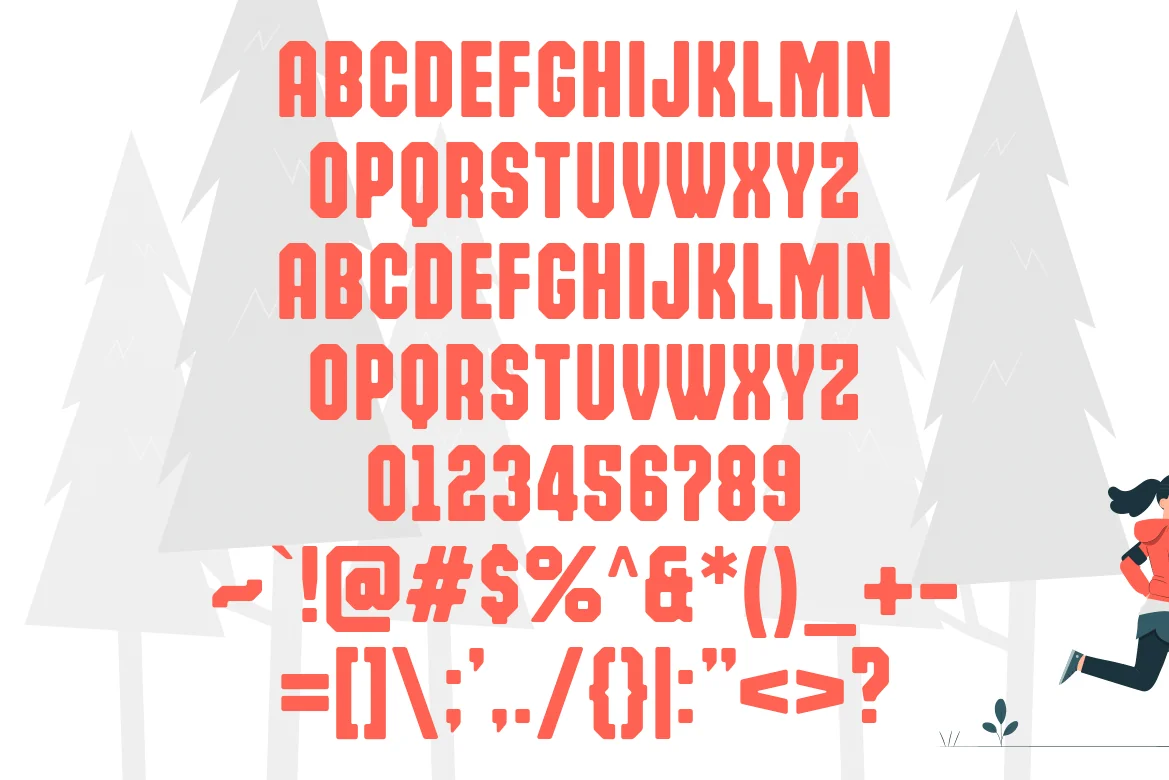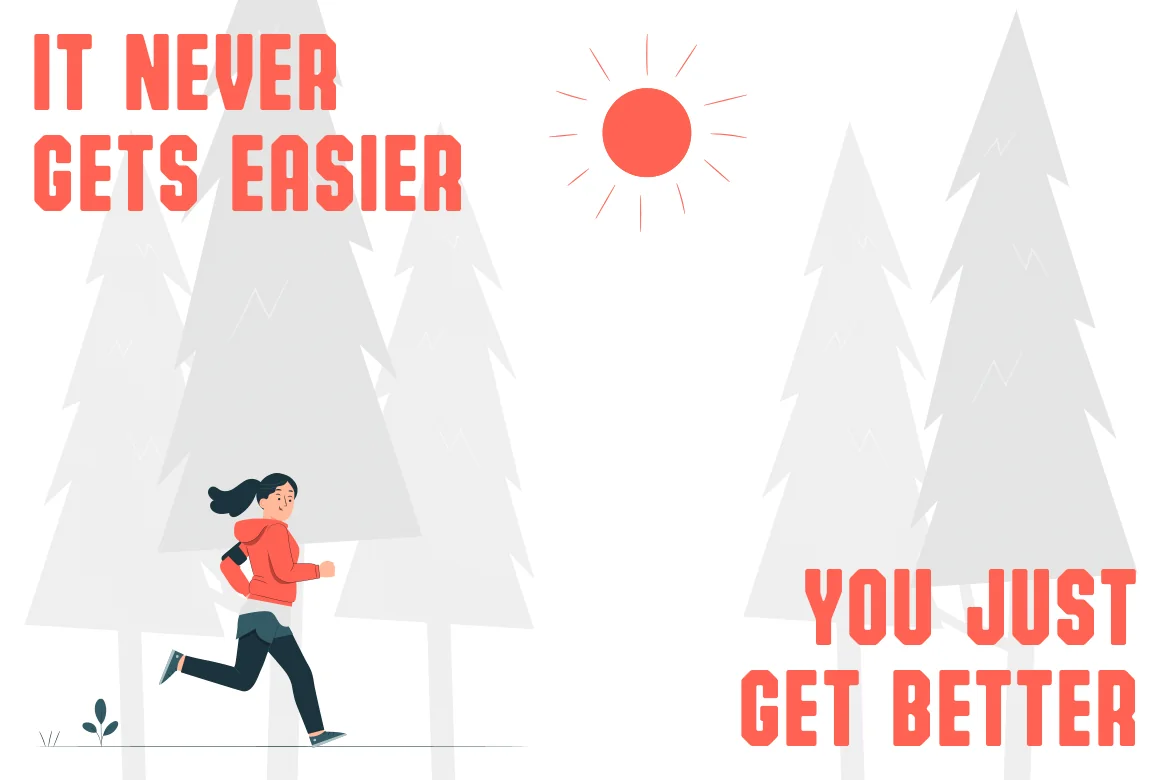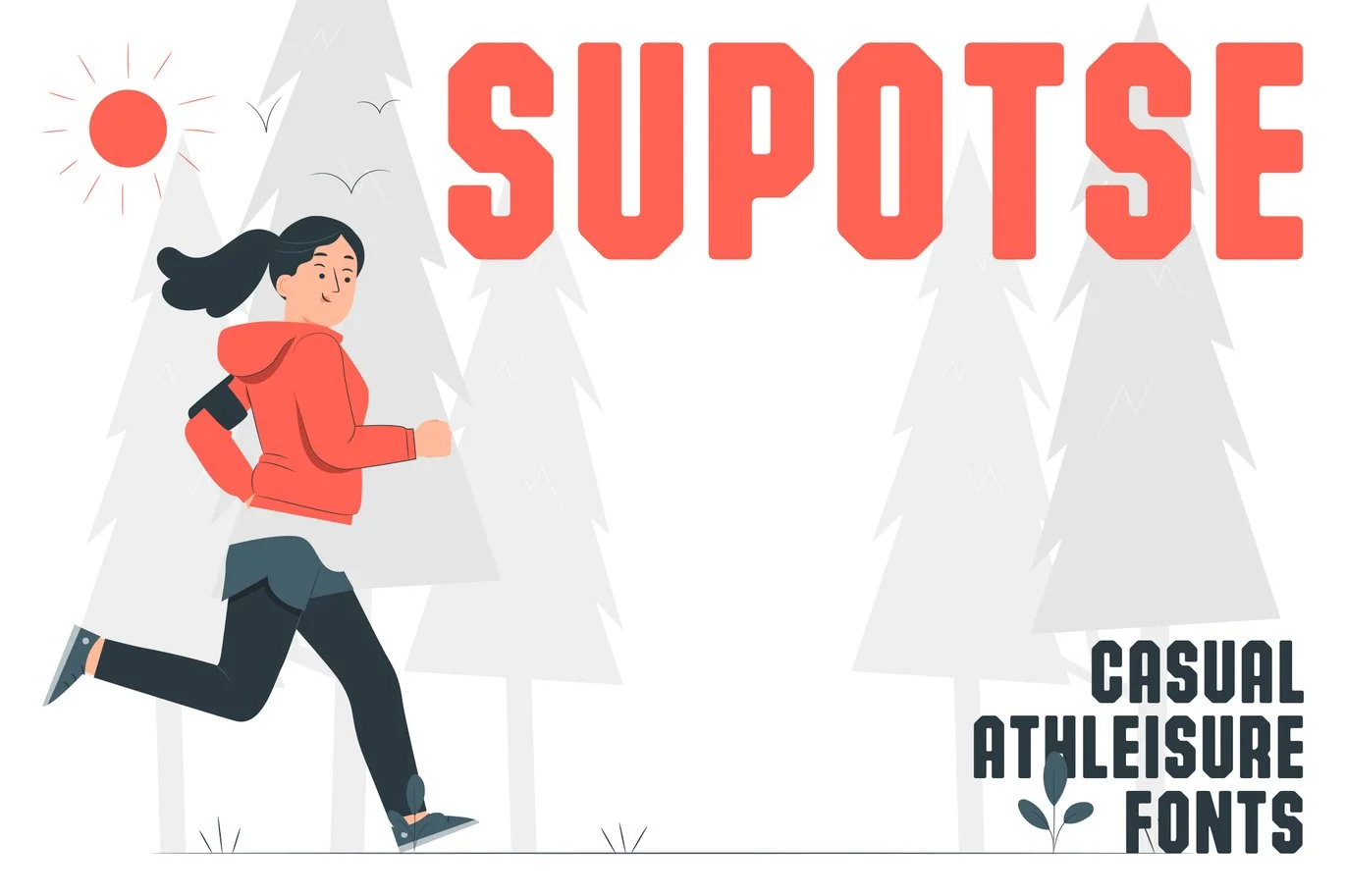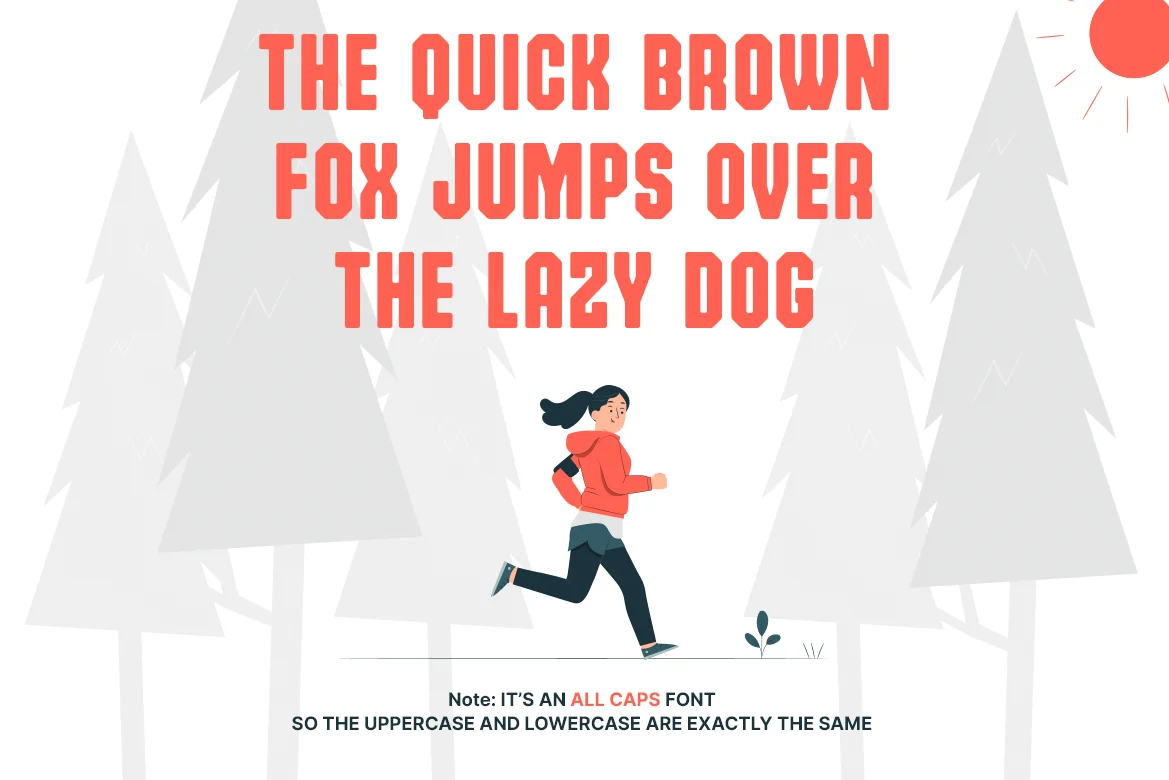
Supotse – Casual Athleisure Fonts
Get ready to play with Supotse, the casual, fun, and sporty font designed to capture the energy of today’s athletic world.
Inspired by the bold visuals of sports branding and the dynamic athleisure lifestyle, Supotse brings a fresh, lively touch to your designs. Whether you’re working on sportswear, fitness campaigns, or anything that needs a burst of active spirit, Supotse is your go-to font.
With its playful curves and energetic vibe, this typeface embodies the movement, style, and passion of modern sports culture.